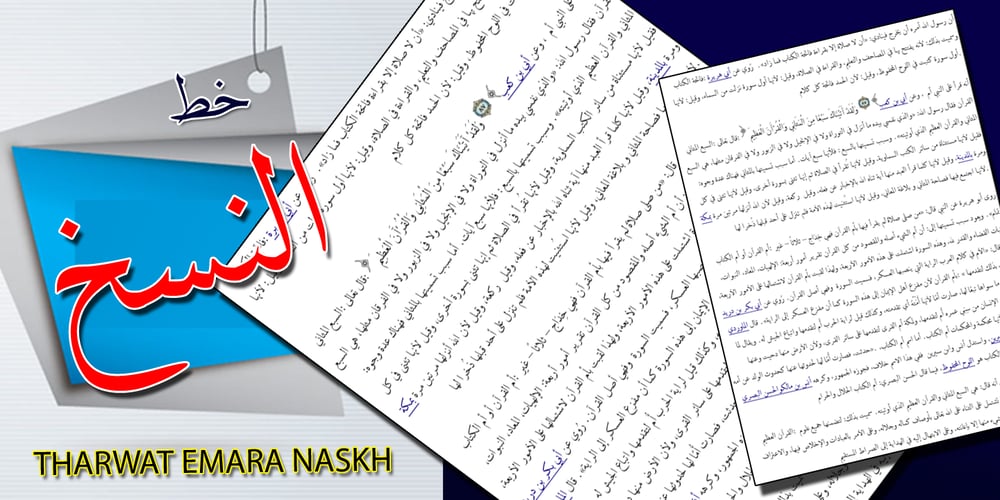
TE Naskh Font Family was designed by Tharwat Mohamed Emara and published by Tharwat Emara. TE Naskh contains 2 styles and family package options. It is known as the Naskh Font for its extensive use in the copying and transmission of books because it helps the writer to write more quickly than any other font since the Islamic times and then Naskh font wrote the “Quran”. And the advantages of Naskh font are clarifying the letters and show their beauty and splendor.